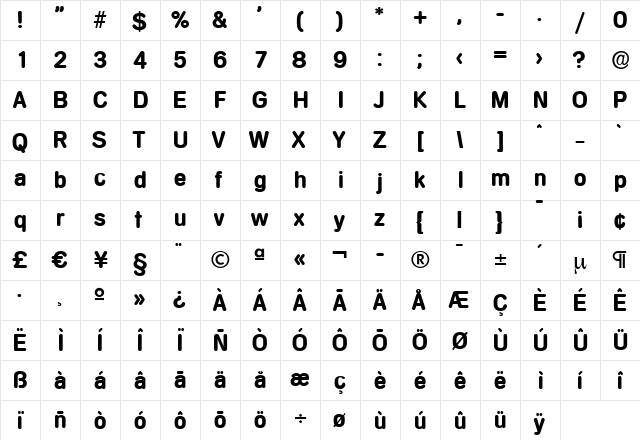
AndreasBecker Bold
Design Context for AndreasBecker Typeface
AndreasBecker is a composed and adaptable typeface that performs quietly and consistently across a wide range of design contexts. The heavy weight commands attention and anchors typographic hierarchies.